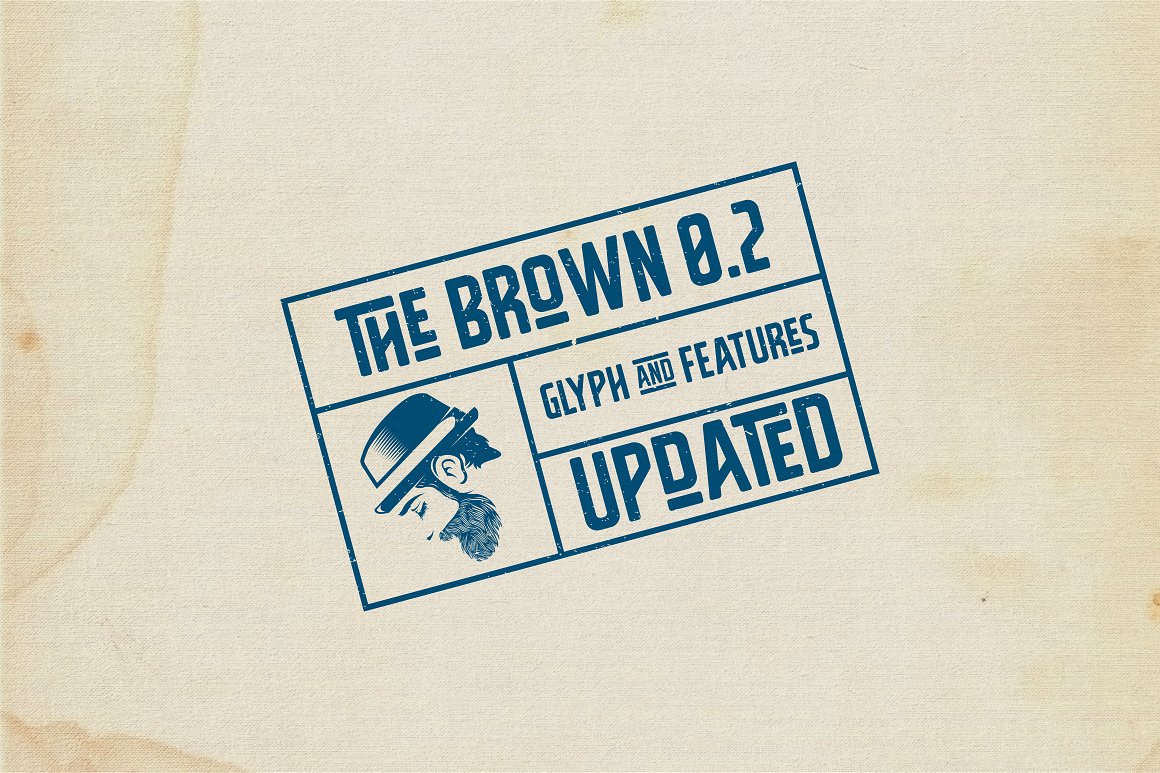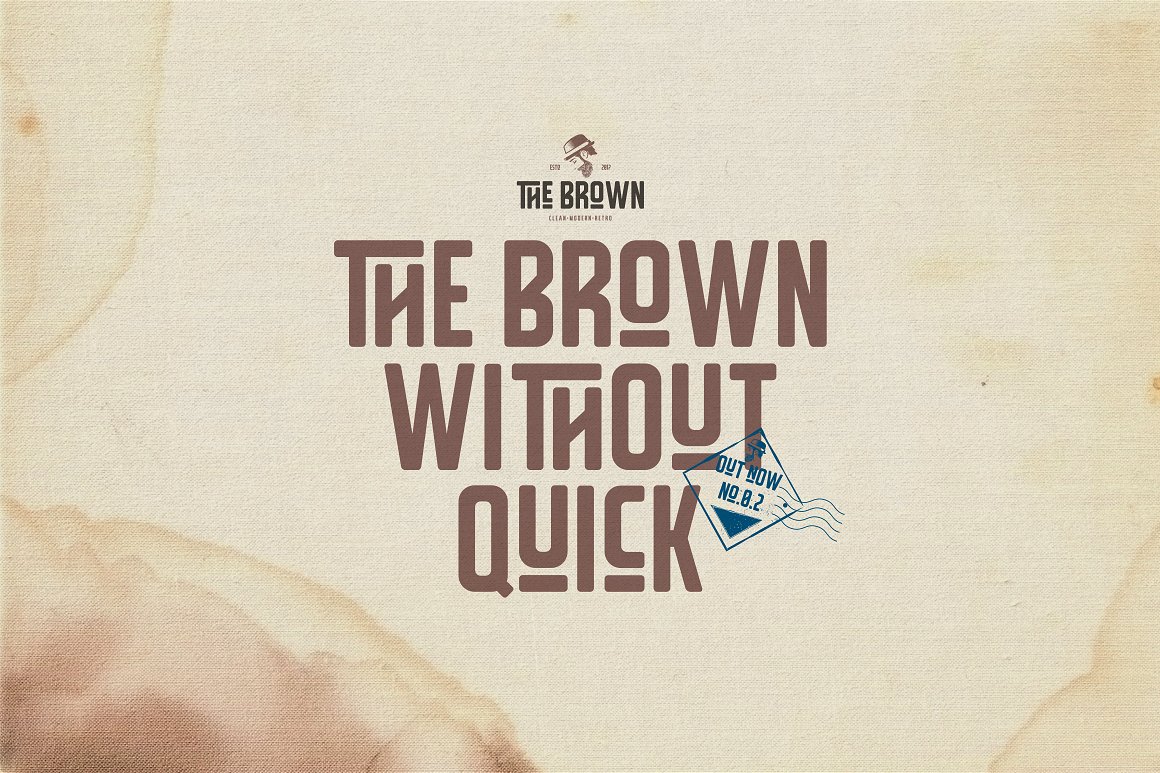
The Brown Font
THE BROWN a display typeface clean retro modern style, we made to give you ease in accomplishing the work of typographic such as logotype, poster, headline, T-shirt and other creative projects.